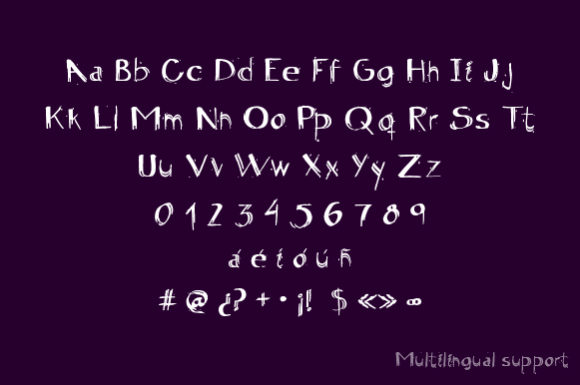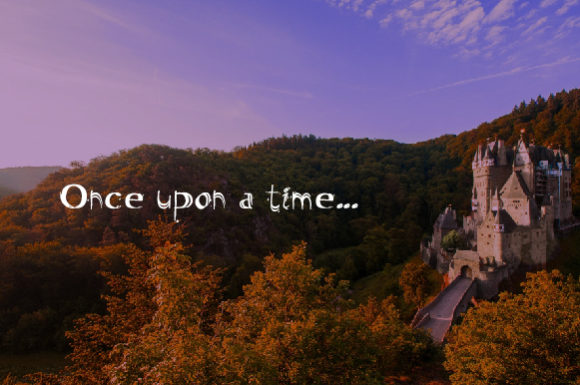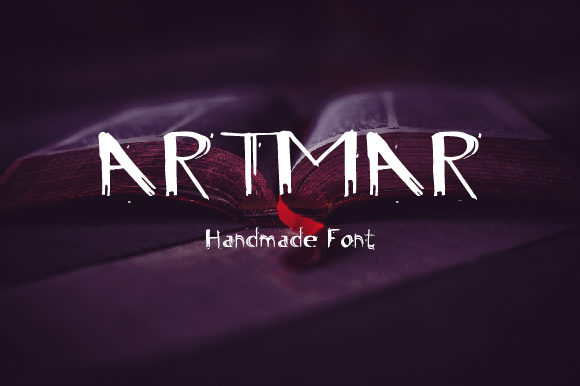
The Artmar Font: A Daring Handwritten Style to Elevate Your Designs
I’ll never forget the moment I stumbled upon the perfect font for a client’s project. It was a handmade greeting card business, and I needed something that captured the essence of handcrafted charm. That’s when I discovered Artmar, a bold, handwritten font that instantly became my go-to. In this article, I’ll share my experience with Artmar, its features, and how to make the most of this beautiful font in your designs.
First Impressions: What I Love About Artmar
Artmar is a daring handwritten font created with Indian ink on paper, digitized to bring its authentic feel to the virtual world. Here are some things I love about Artmar:
- ✨ Unique and bold personality: Artmar stands out from the crowd with its confident, expressive strokes.
- ✅ Authentic feel: The font’s handmade origins shine through, giving your designs a personal touch.
- 💫 Versatility: Use Artmar for media posts, logos, greeting cards, and more – it’s perfect for a wide range of creative projects.
While Artmar is an amazing font, there are a few things to keep in mind:
- 🤔 Legibility at small sizes: Artmar’s bold strokes can become a bit tricky to read at very small font sizes. Make sure to test it in your design before finalizing.
- ⚠️ Limited formal applications: Due to its bold, expressive nature, Artmar might not be the best fit for very formal or professional designs.
The Story Behind Artmar
Artmar was created by a talented designer who wanted to capture the essence of traditional Indian ink writing. Inspired by the expressive strokes and authentic feel of handmade paper, Artmar was born. The designer’s goal was to create a font that would bring a personal touch to digital designs, and Artmar has certainly achieved that.
| What makes Artmar unique? | Artmar’s bold, handwritten style and authentic feel set it apart from other fonts. |
| Is Artmar suitable for body text? | While Artmar is a beautiful font, it’s best used for headlines, titles, and short paragraphs due to its bold nature. |